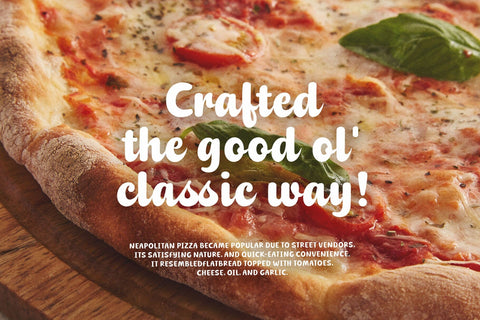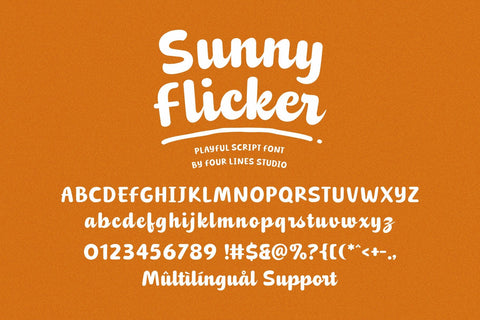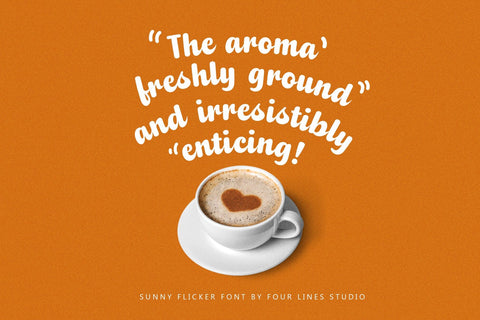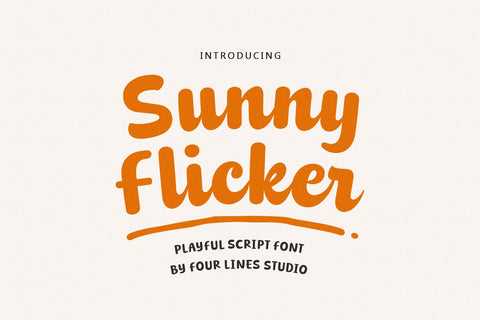
Sunny Flicker - Playful Script Font
Sunny Flicker is a bold script font with a playful, fun vibe. Its thick, lively strokes make it perfect for projects that need a cheerful and eye-catching touch. Whether it's for logos, headlines, or creative designs, Sunny Flicker adds a friendly and fresh feel to your work.